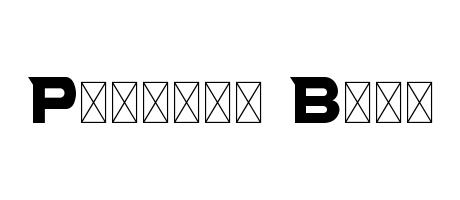
Poggers
By Travis Howell
Poggers Bold is a bold, geometric sans-serif typeface. Its strong, blocky letterforms convey a sense of power and impact. The sharp angles and consistent weight create a modern, almost futuristic feel. It's a font suited for headlines and branding that demands attention. The slightly asymmetrical serifs on the P and B add a unique touch.